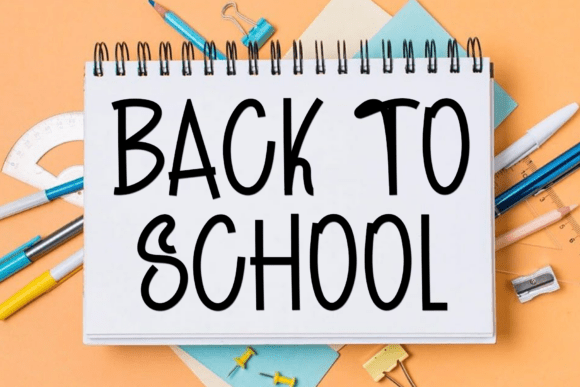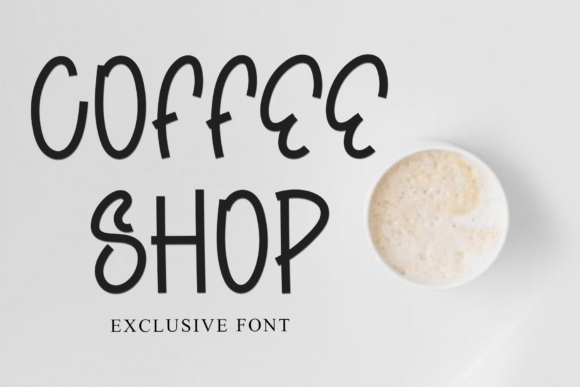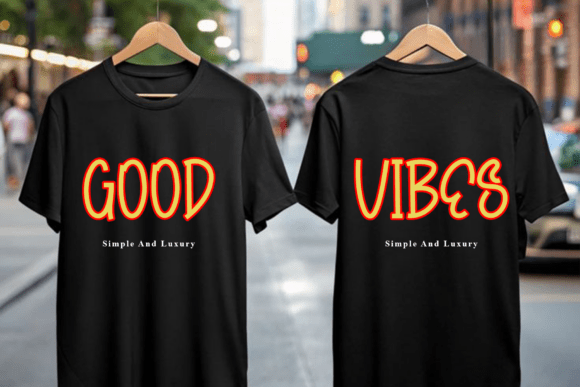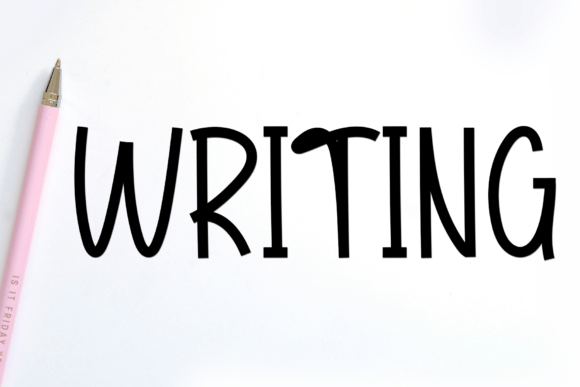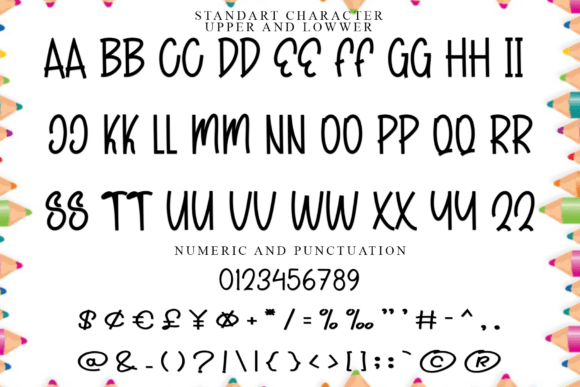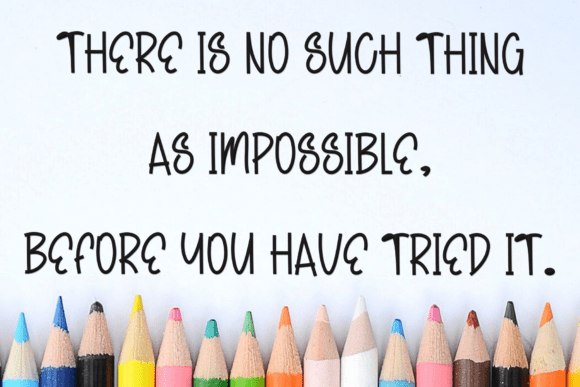
The Joy of Learning: Introducing Black School Font
Do you remember the excitement of walking into your first classroom, surrounded by colorful chalkboard drawings and the sound of scribbling pencils? For many of us, those early school days evoke a sense of wonder and curiosity that stays with us throughout our lives. As a designer, I often find myself drawn to typefaces that capture the essence of this nostalgic charm.
Enter Black School Font, a modern sans serif font that embodies the spirit of school days and hand-drawn chalkboard lettering. Its unique blend of tall, narrow characters and quirky shapes makes it an ideal choice for educational materials, classroom decor, children’s book covers, and playful branding projects.
Whether you’re working on a project that requires a touch of whimsy or a font that’s both fun and professional, Black School Font is a valuable addition to any designer’s toolkit. Its versatility and charm make it a must-have for anyone looking to bring a sense of nostalgia and playfulness to their work.
Key Features of Black School Font
- Font Family: Black School Font is a unique, hand-drawn font family that includes 6 styles: Regular, Italic, Bold, Bold Italic, Condensed, and Condensed Bold.
- Unique Characteristics: Features a distinctive, hand-drawn aesthetic with subtle imperfections, giving it a personal and nostalgic feel.
Black School Font Review
Overall, I have mixed feelings about the Black School Font. While it has some unique qualities, it also has some significant drawbacks.
- The font’s bold and edgy design makes it perfect for creating a rebellious or avant-garde aesthetic.
- It’s great for headings and titles, as it adds a sense of drama and emphasis.
- The font’s irregularities give it a handmade feel, which can be appealing in certain contexts.
Limitsations ⚠️
- The font’s irregularities can also make it difficult to read in certain situations, particularly in large blocks of text.
- The lack of standard letterforms can make it harder to recognize certain words or letters.
- The font’s overall design may not be suitable for all types of content, such as body text or technical documentation.
The Black School Font is a bold and eye-catching choice, but it’s not for everyone. While it excels in certain situations, its limitations make it less versatile than other fonts. If you’re looking for a font that adds a touch of rebellion to your design, Black School Font might be a good choice. However, if you need a font that’s easy to read and versatile, you may want to consider other options.
Tips for Getting the Most Out of Black School Font
For best results, use Black School Font on bold, eye-catching text to create a striking visual impact.
Experiment with different font sizes and styles to create a unique and cohesive look.
Use Black School Font in combination with other bold fonts to create a dynamic and modern design.
Black School Font is perfect for:
Headings and titles
Emphasizing key points or calls-to-action
Creating a bold and modern design aesthetic
Alternatives to Black School Font